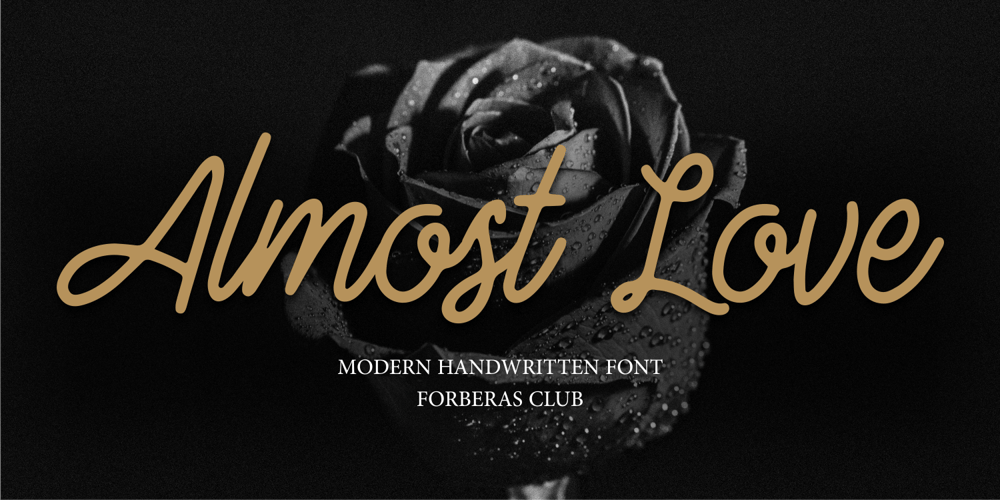
Almost Love
Almost Love font
Almost Love Font Family was designed by ANGGI HERMAWAN and published by Forberas Club. Almost Love contains 1 styles and family package options. Almost Love type is handwriting style. Nice to application for wedding invitation, tees design, cover, writing text, wedding moment, logo photography , signature and many more.